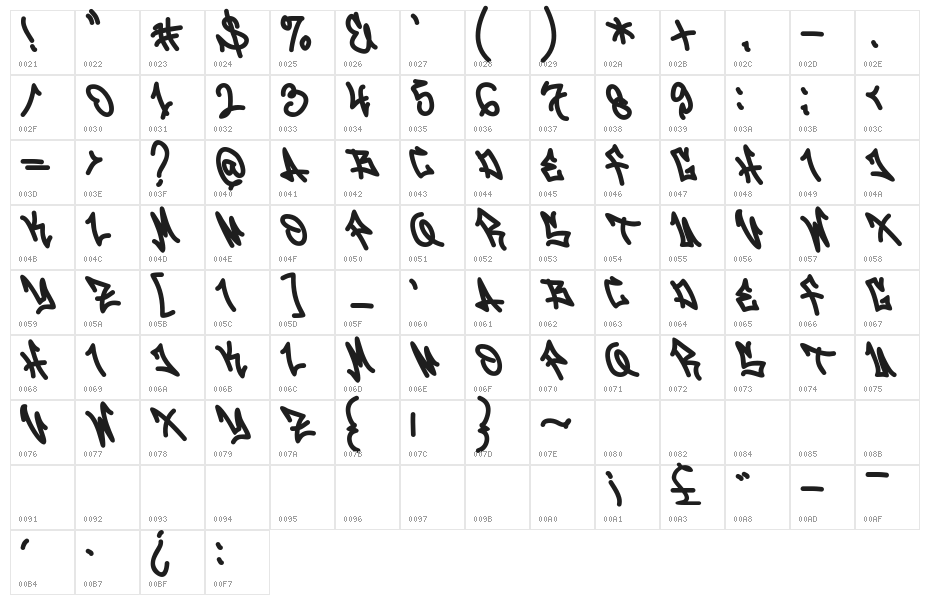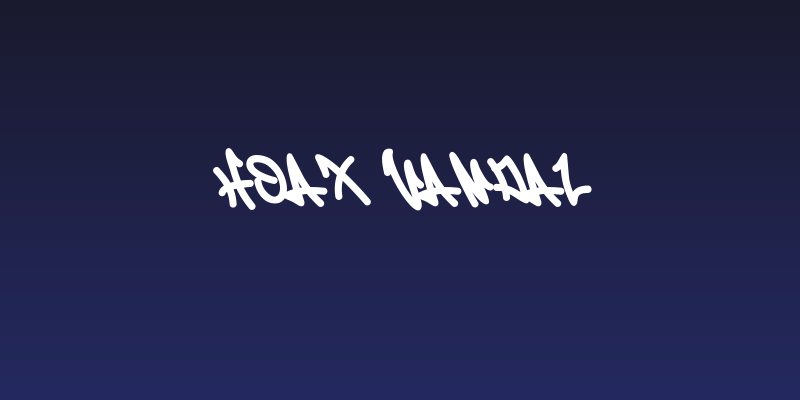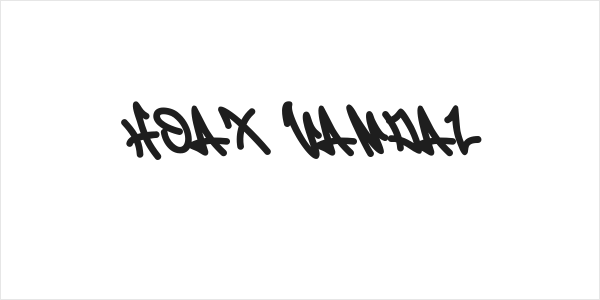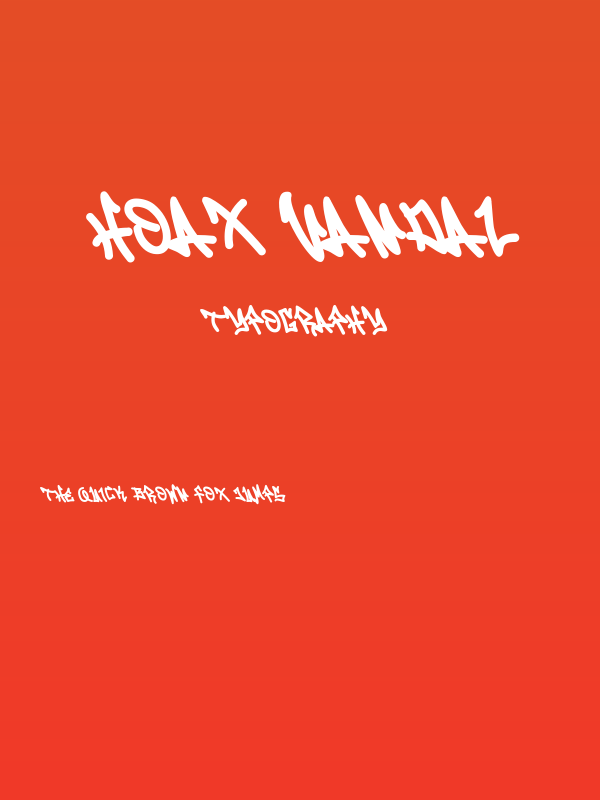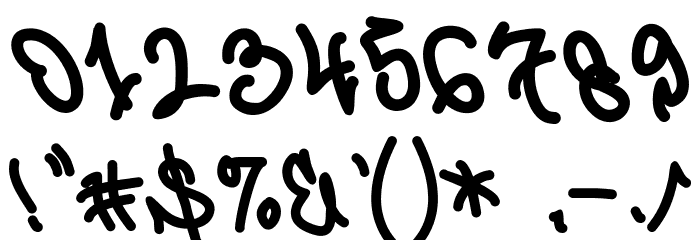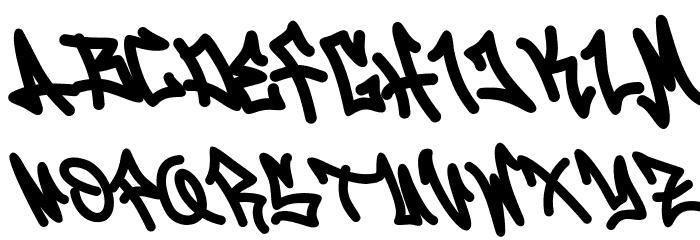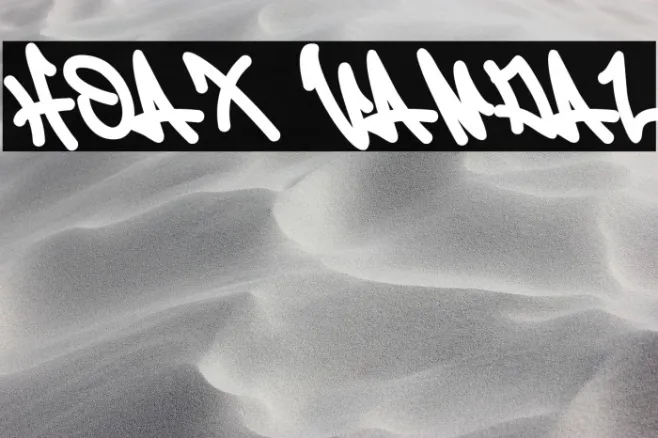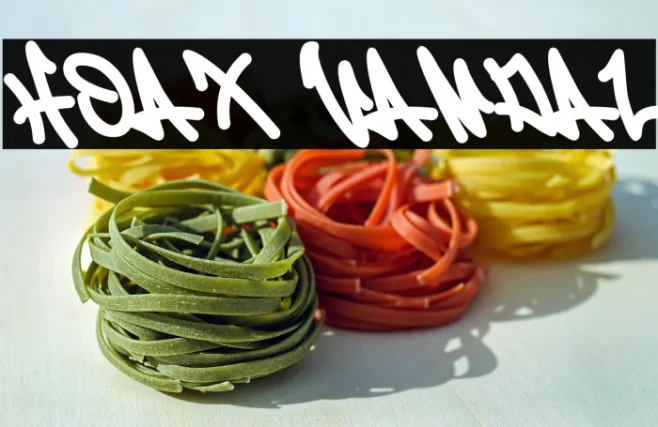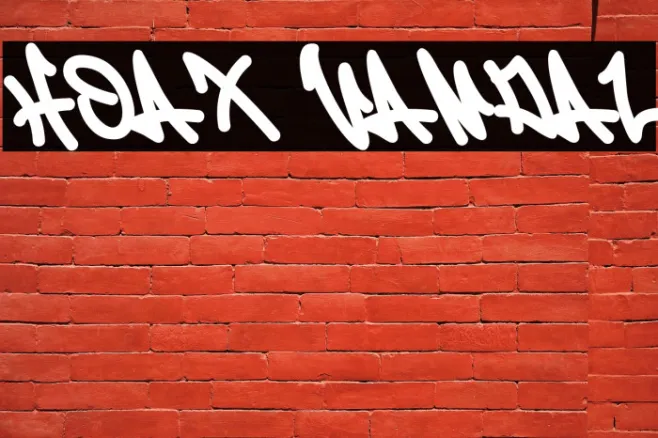
Hoax Vandal Font
Hoax Vandal Description
A bold, graffiti-style font with a handwritten, urban aesthetic. The characters are dynamic and expressive, resembling street art.
| Overall Style | Urban, Graffiti, Expressive |
| Use Case | Logos, Posters, Headlines |
| Proposed Projects | Street art designs, urban-themed posters, edgy branding. |